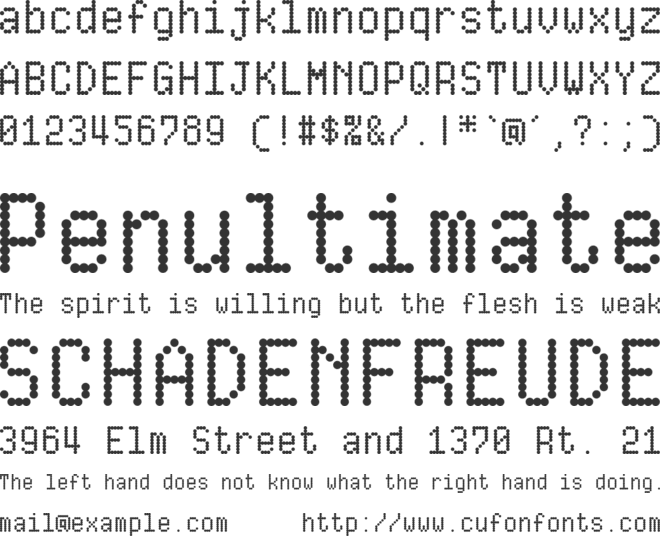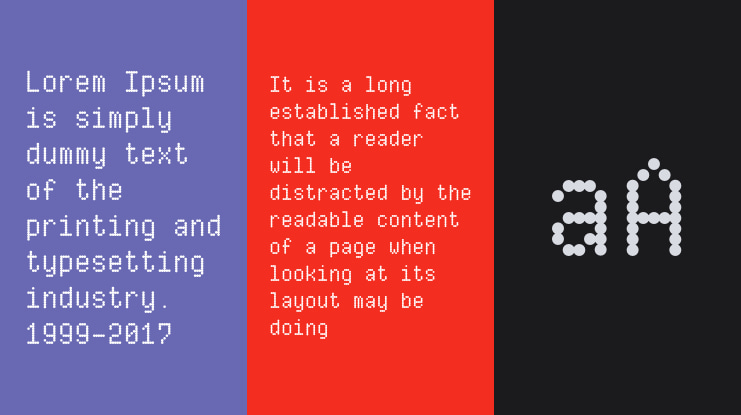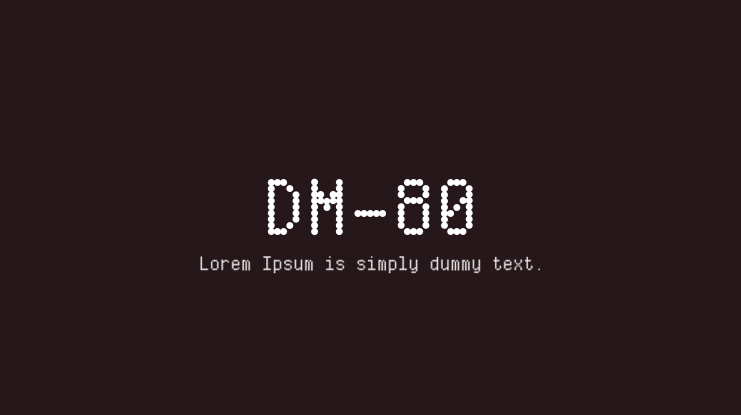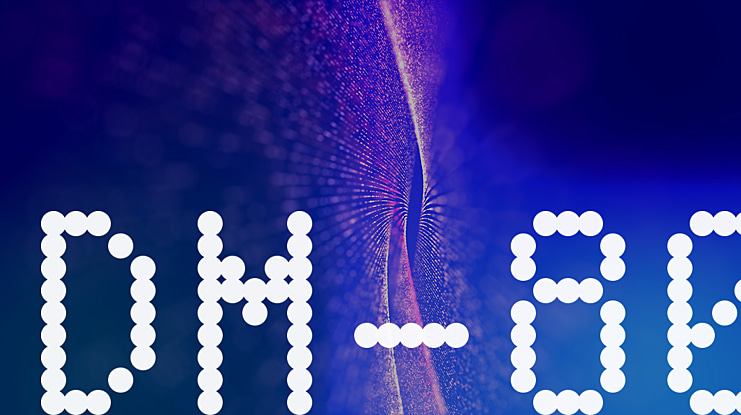
DM-80 Font Family
Thor Christopher Arisland
DM-80 is a clean, monospaced dot matrix font that emulates a 9-pin dot matrix printer.
It comes in two weights, regular and light.